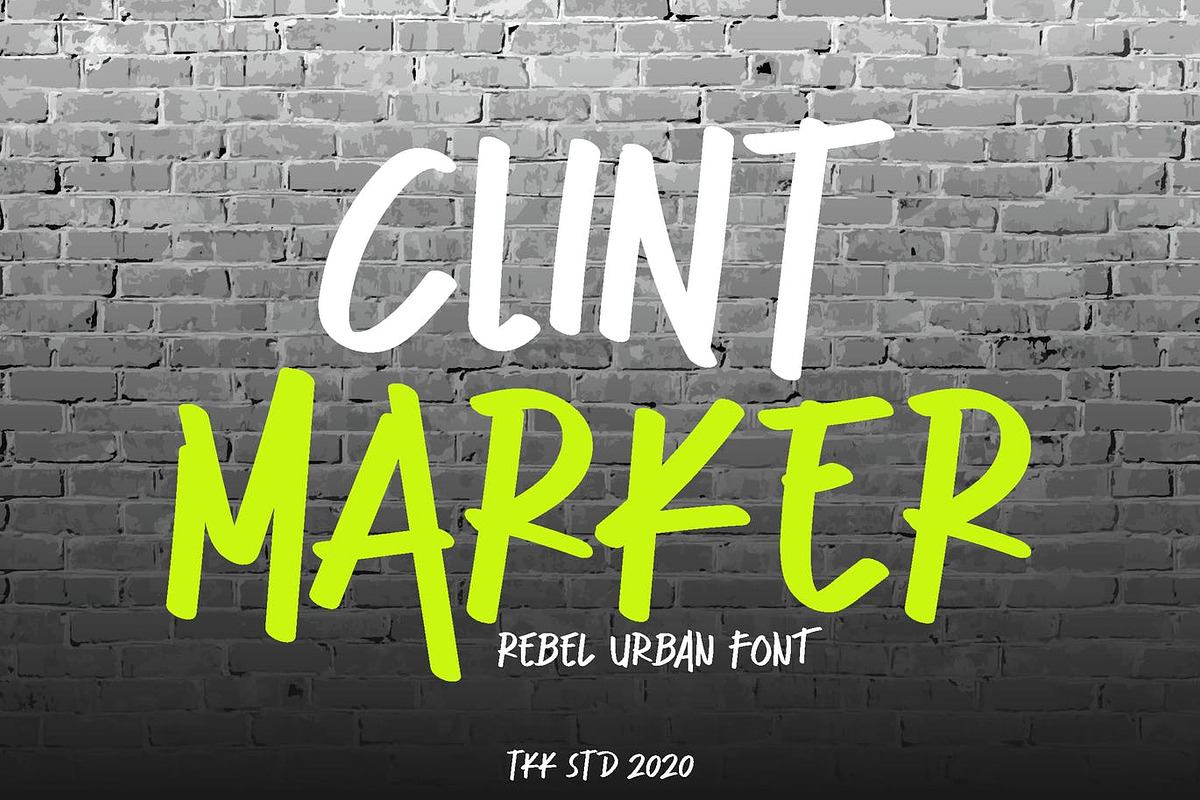
Clint Marker - Graffiti Font Free Download is a bold and expressive typeface inspired by street art and graffiti culture. Featuring rough, dynamic strokes and a raw, hand-drawn aesthetic, this font is perfect for projects that need an edgy, urban feel, such as music posters, streetwear branding, logos, and social media graphics.
Its unrefined, textured design adds an authentic and rebellious flair, making it ideal for creative projects that want to make a bold statement. Whether you're designing for a hip brand, creating promotional material, or working on event graphics, Clint Marker adds a unique touch of personality and style to your typography.